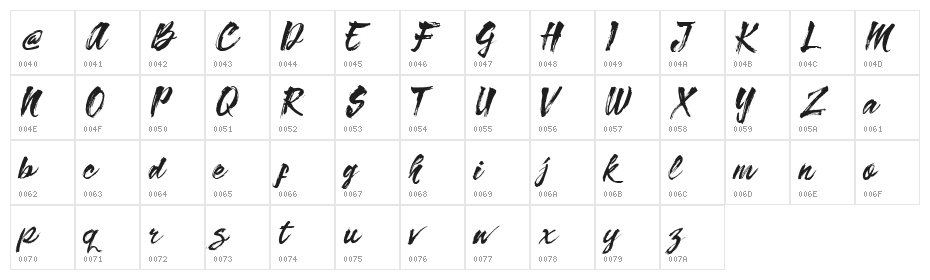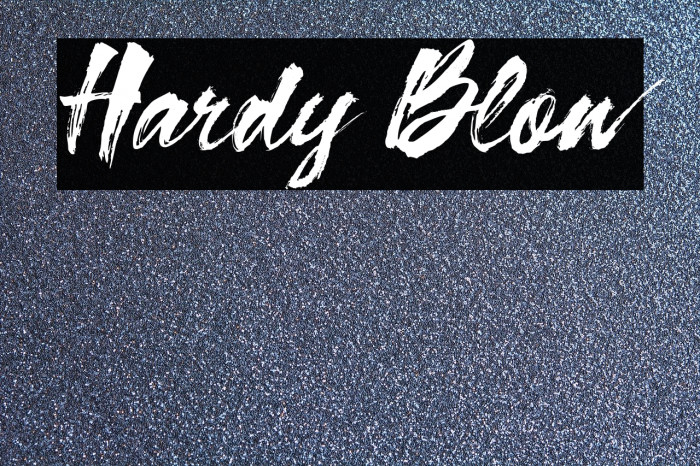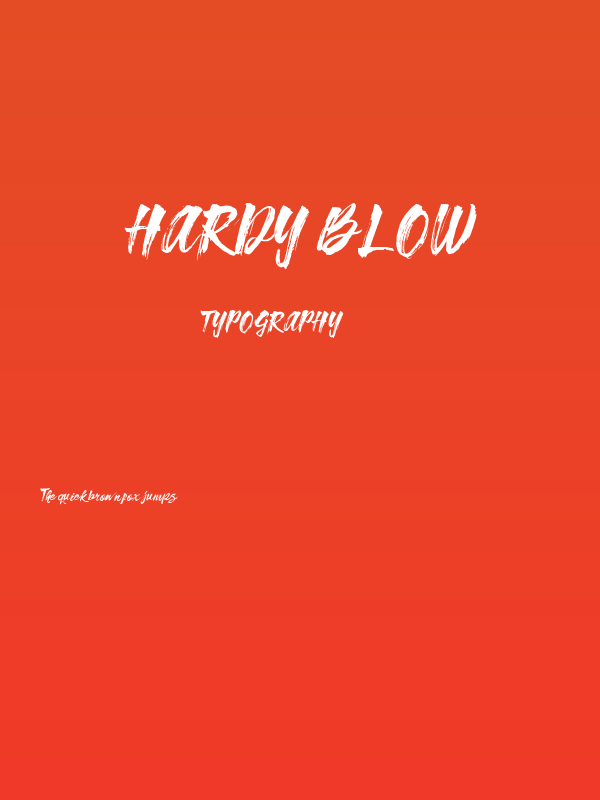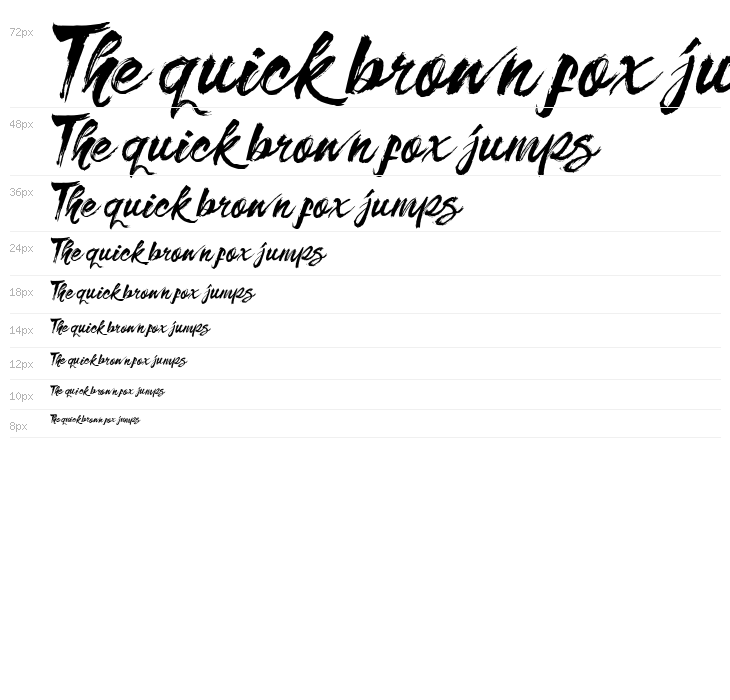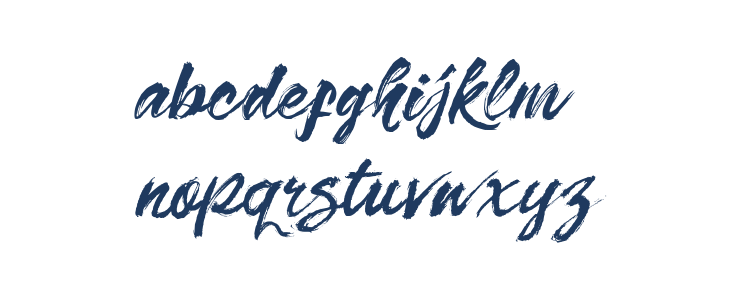
Hardy Blow Font
Hardy Blow Description
This font exudes a bold and dynamic brush script style, characterized by its expressive and energetic strokes. The letters are crafted with a rough, textured appearance, giving them a hand-painted feel. Each character varies in width and angle, adding to the font's lively and spontaneous nature. The uppercase letters are particularly striking, with exaggerated flourishes and a sense of movement, while the lowercase letters maintain a consistent flow. The numbers and special characters follow the same aesthetic, ensuring a cohesive look across all elements. This font is perfect for projects that require a touch of artistic flair and a bold statement.
| Proposed Projects | Ideal for branding, posters, album covers, and any design needing an artistic, bold touch. |